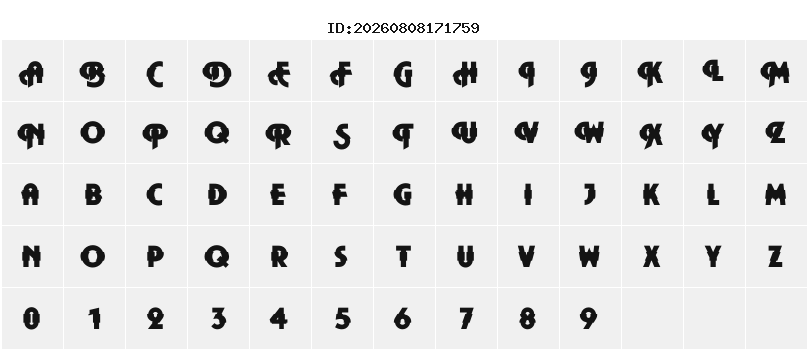
About Plaza44 Becker.ttf
Plaza44 Becker.ttf is a modern, elegant sans-serif font designed for ultimate readability and visual harmony. Perfect for branding, headlines, web design, and print materials.